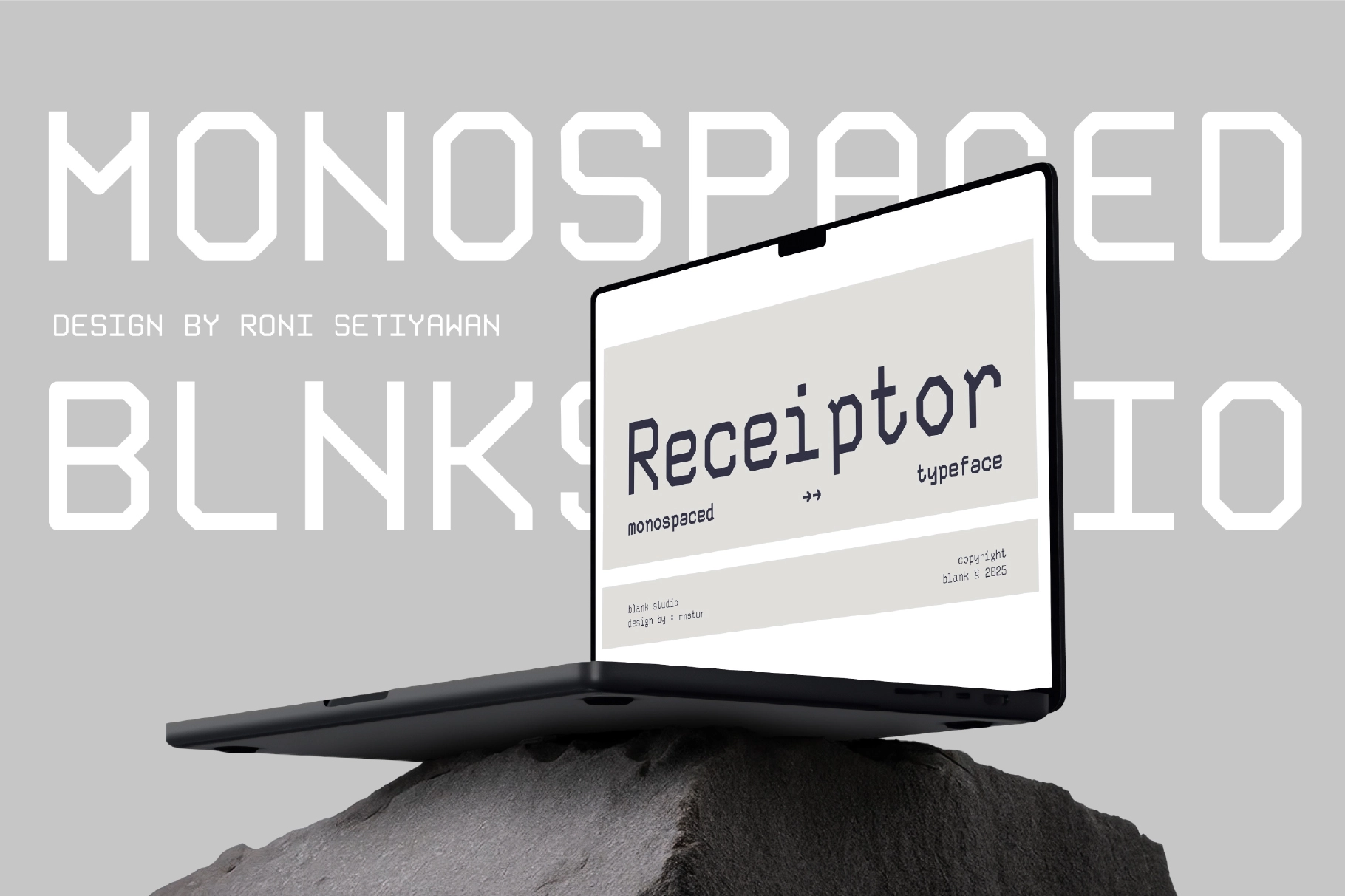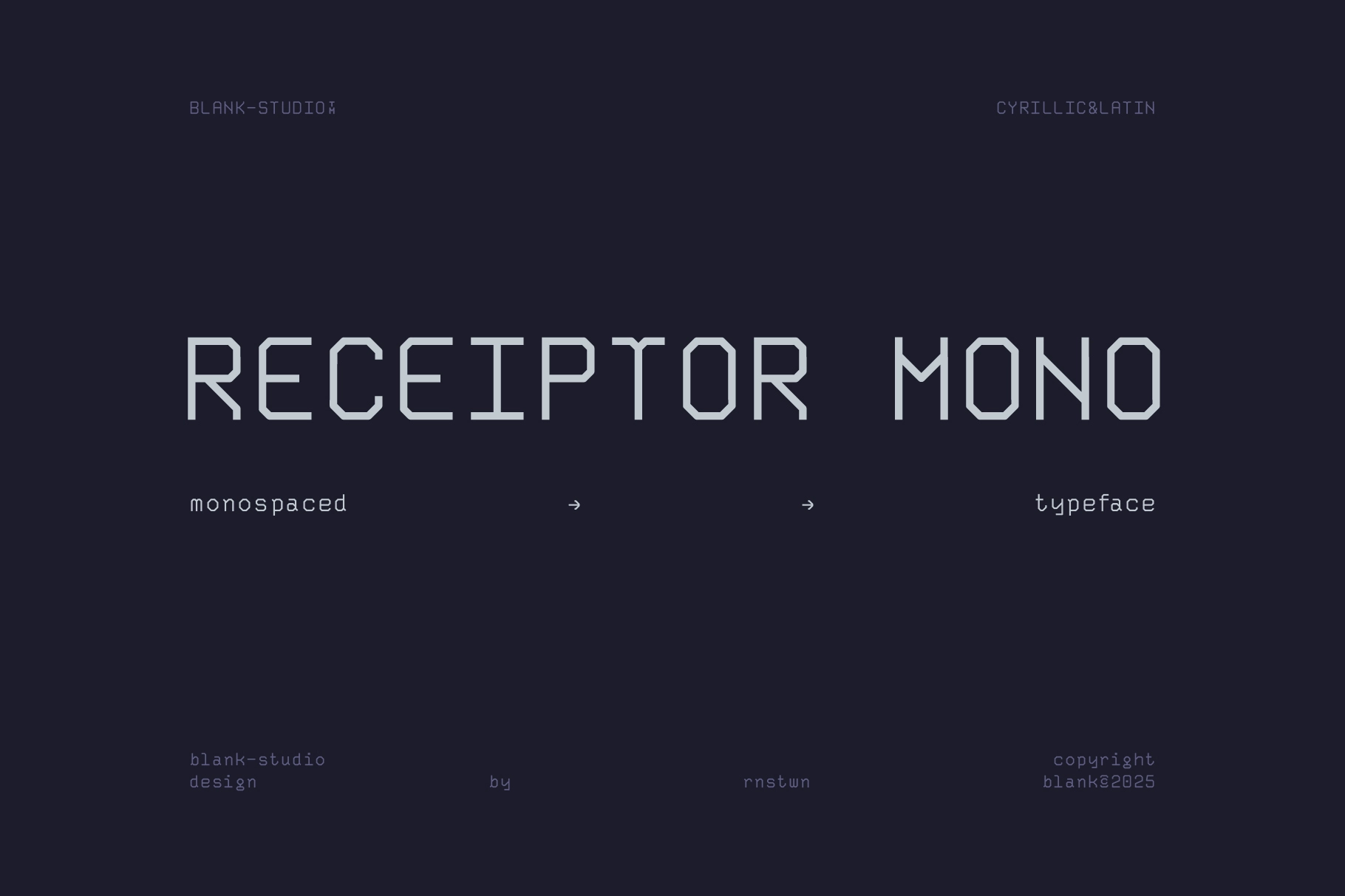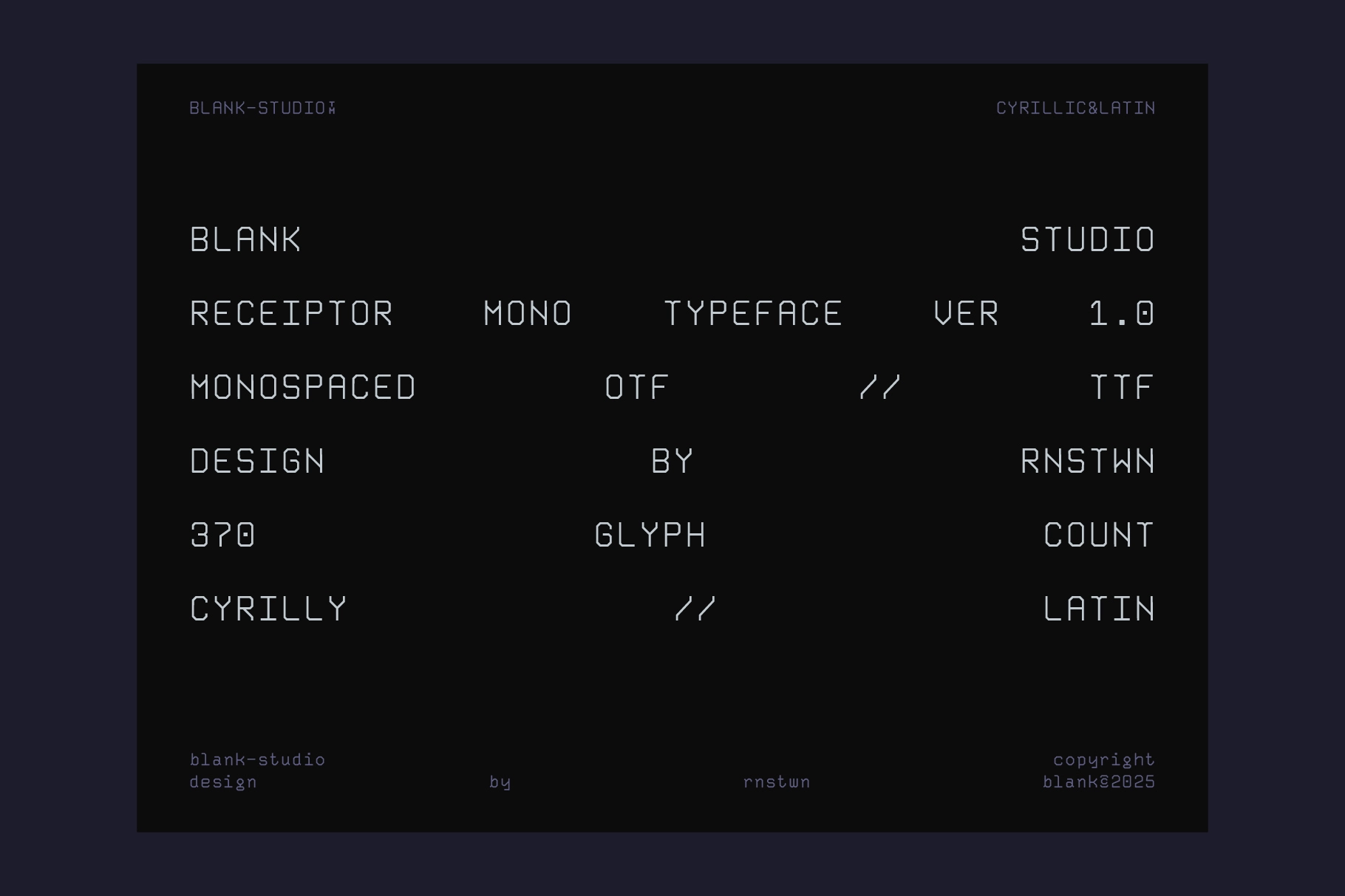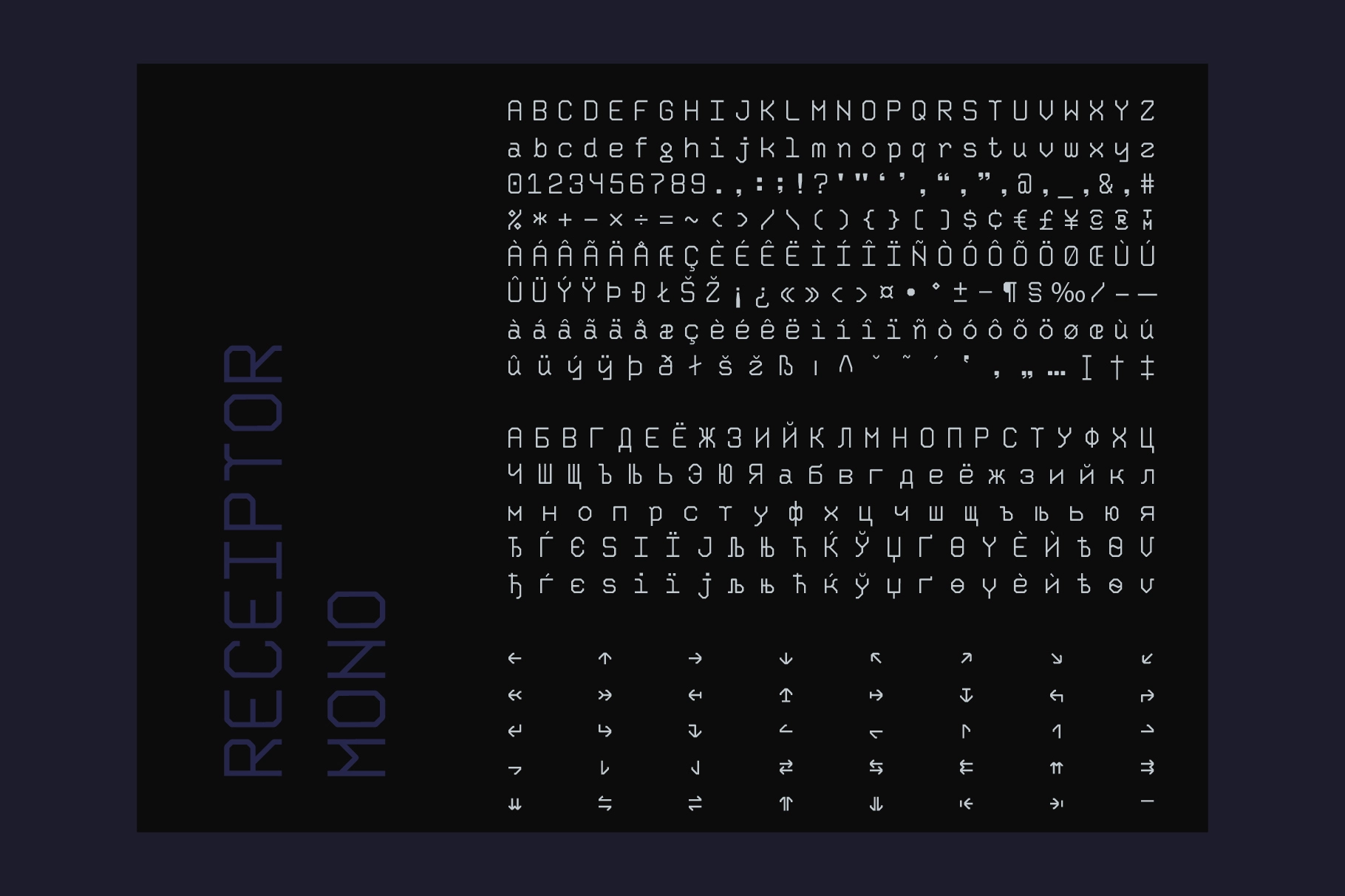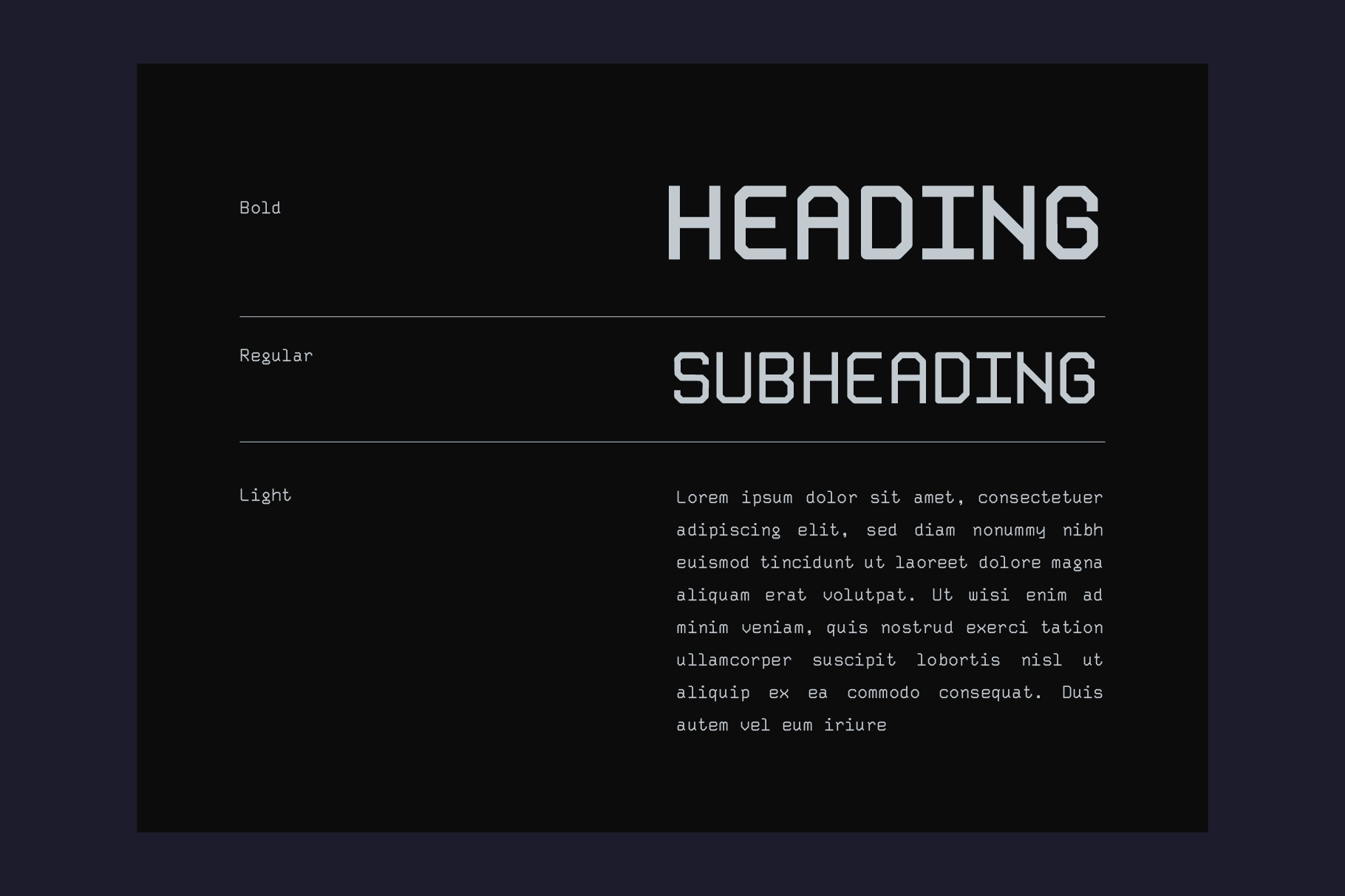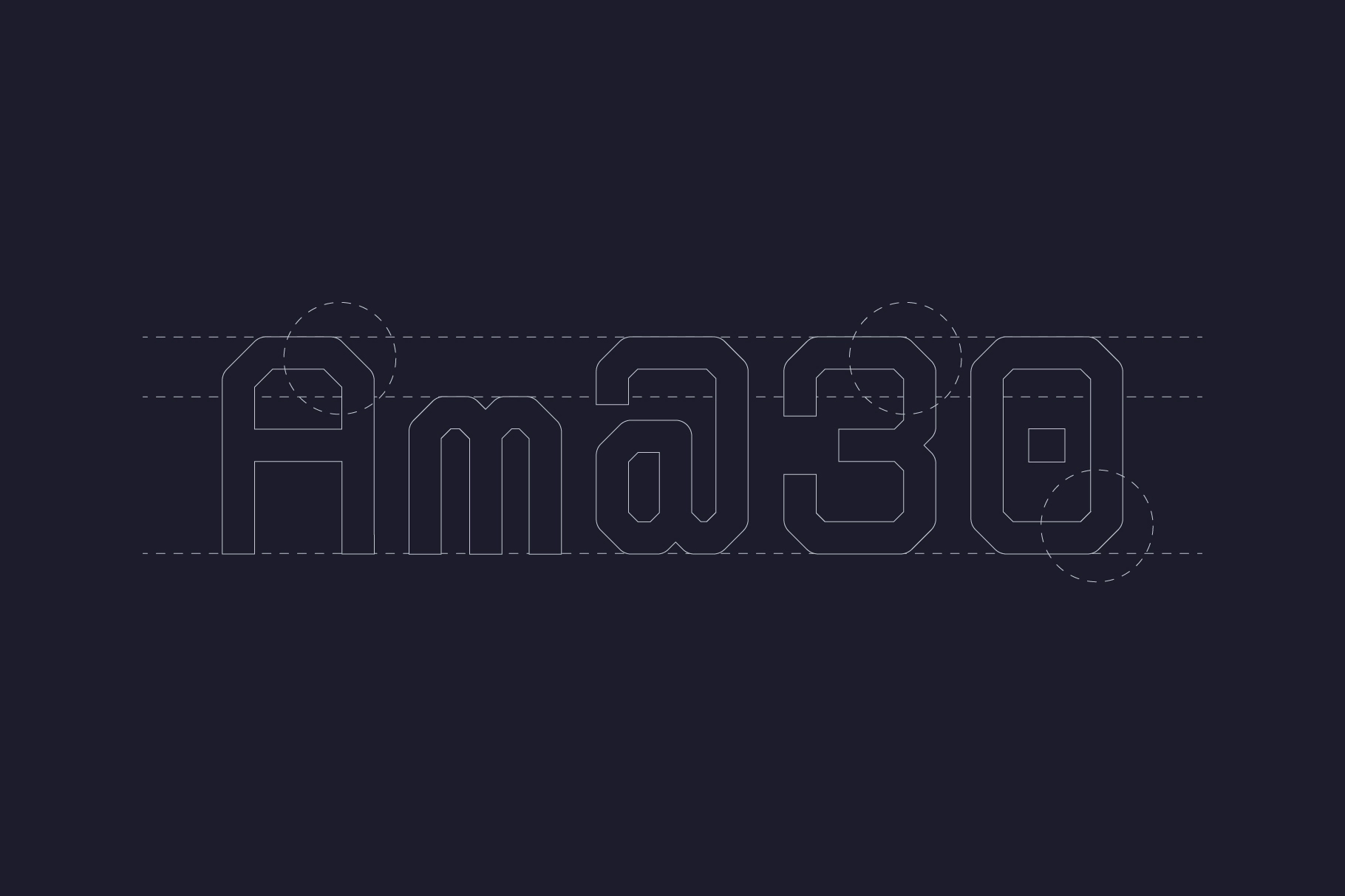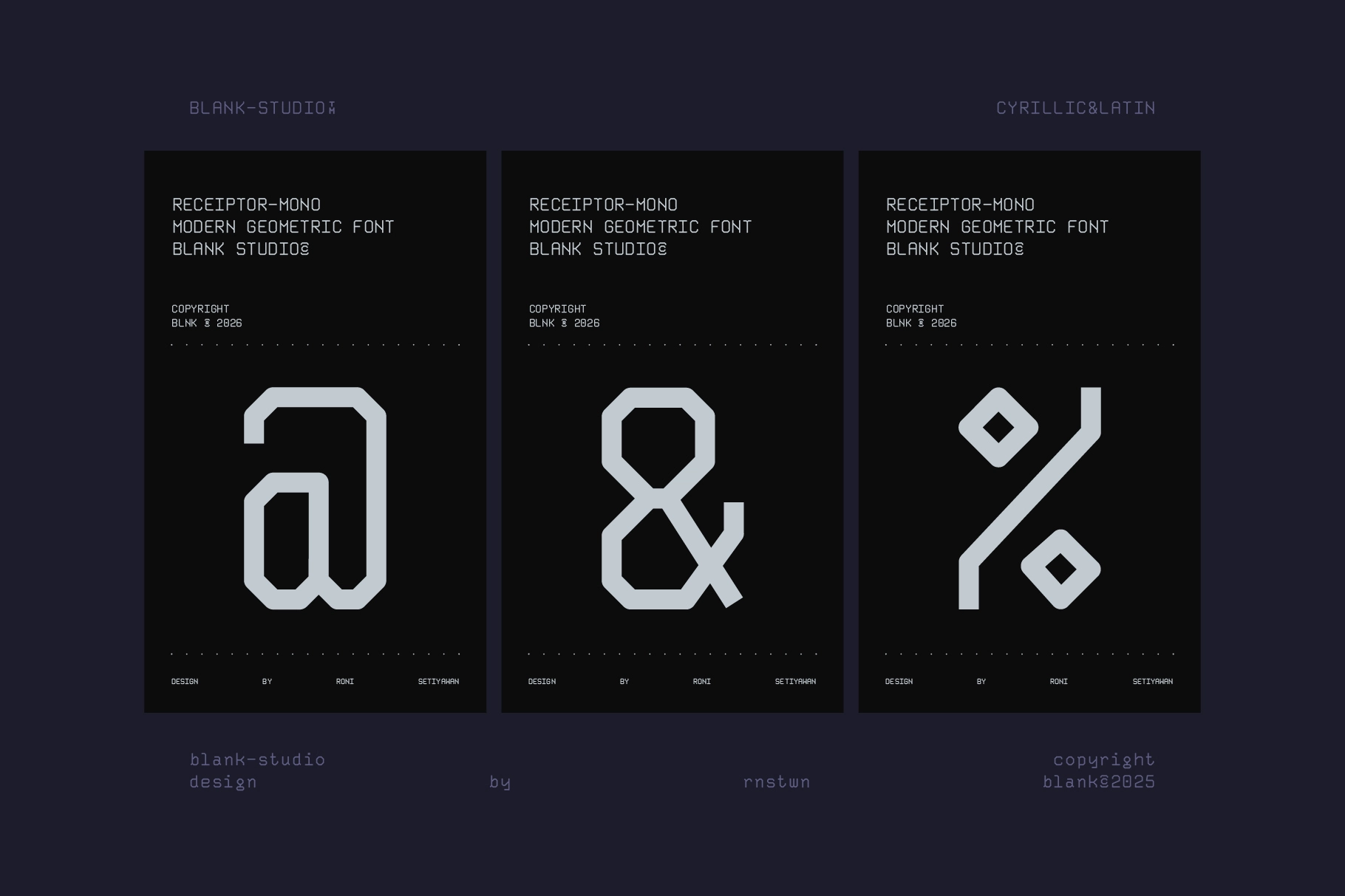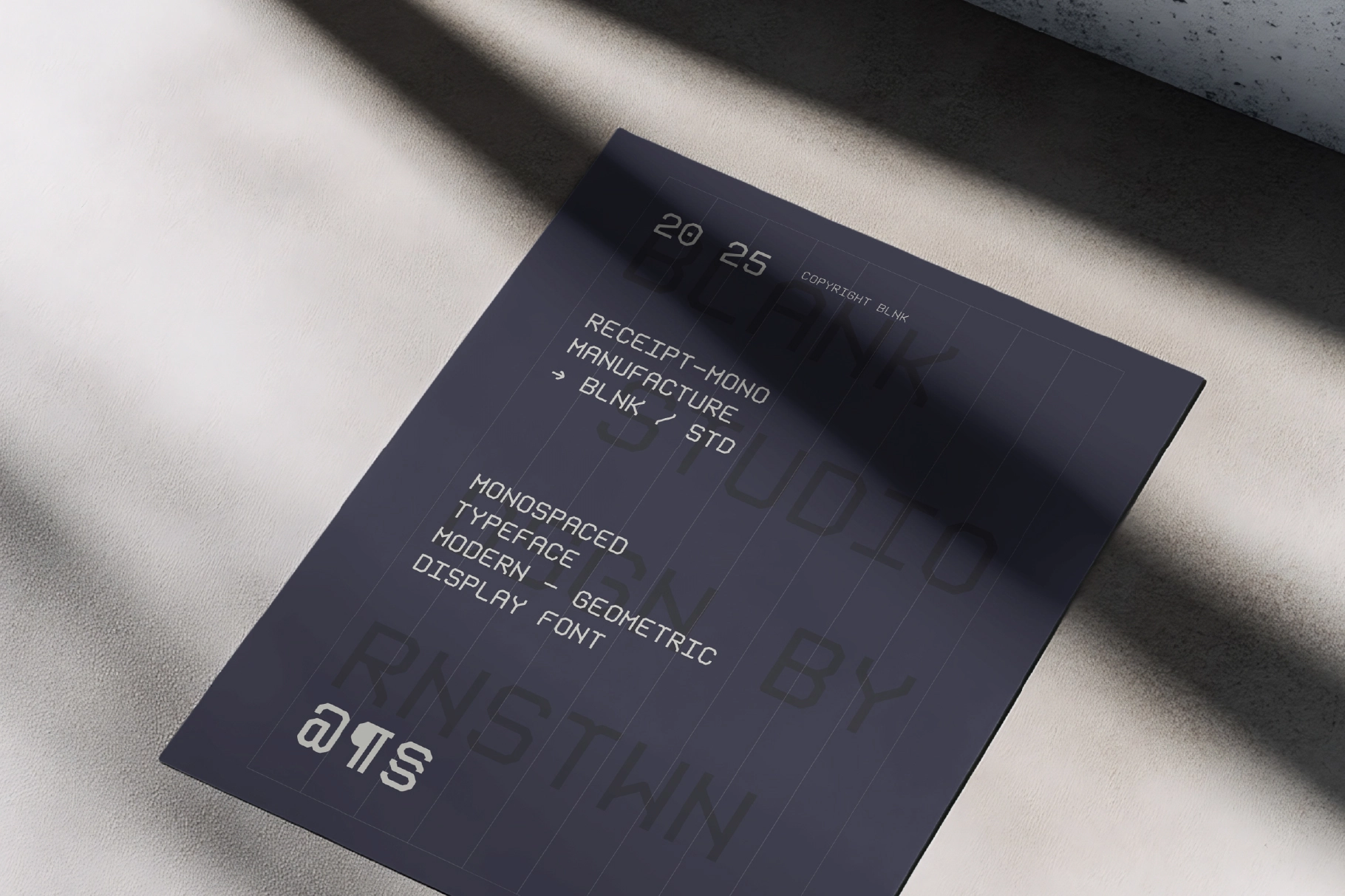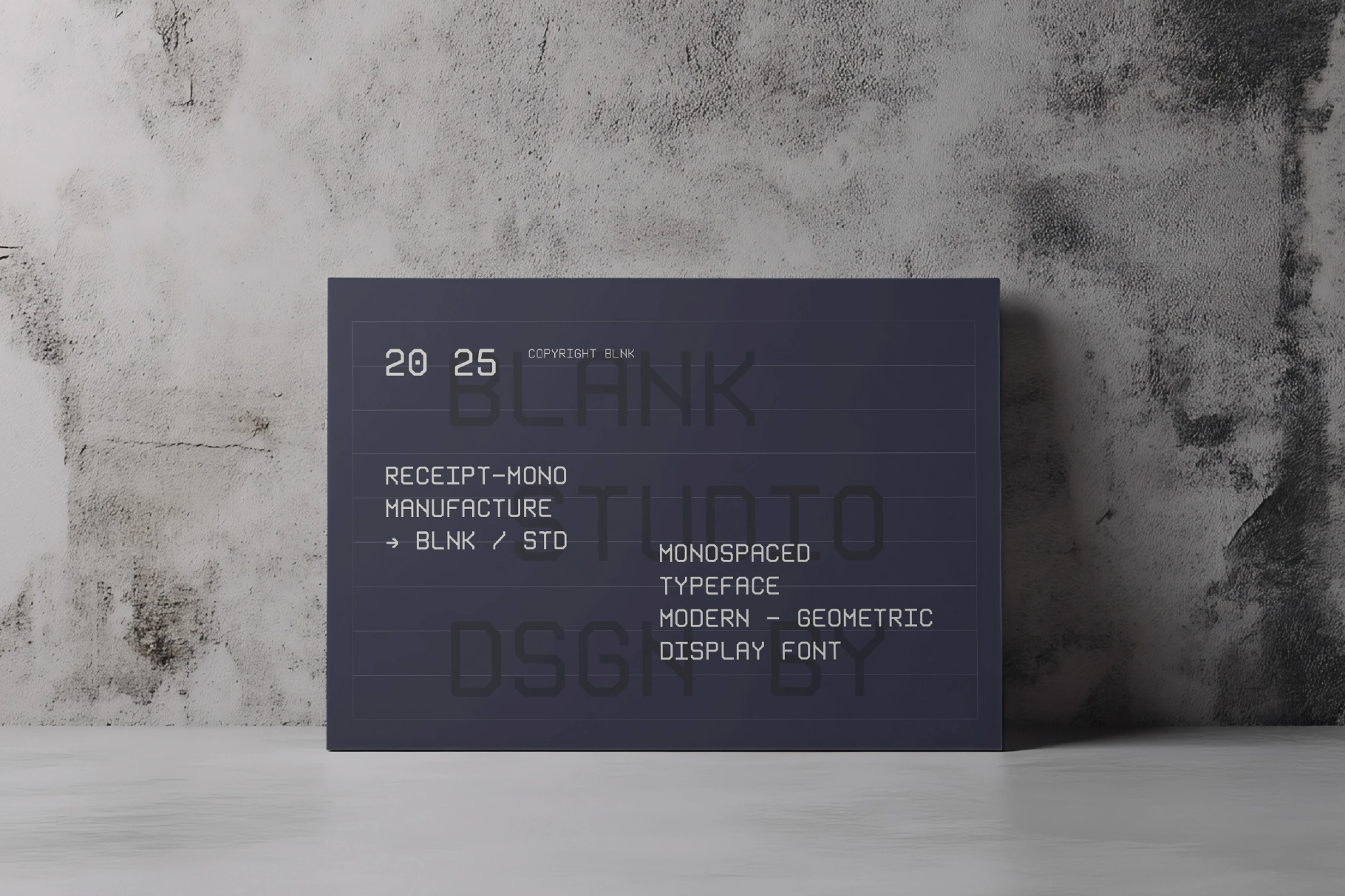
Receiptor Mono - Geometric Monospace Display Font
Receiptor Mono is a geometric monospace font drawn from the visual grammar of thermal receipt printers, digital cash registers, and early terminal displays. Each glyph sits on a strict fixed-width grid, with octagonal corner cuts replacing the rounded terminals you'd expect from a typical grotesk mono — the result reads as deliberately machine-made rather than humanist. Three weights (Light, Regular, Bold) give enough range to build a full typographic hierarchy from data labels and body copy up to display headlines, all within the same locked-grid aesthetic.
The 370-glyph character set covers both Latin and Cyrillic, making it a practical choice for projects that span those language territories. Use it for UI interfaces, data dashboards, sci-fi editorial design, techno event branding, invoice and receipt templates, label systems, and code-adjacent visual work.
• 3 styles: Light, Regular & Bold;
• uppercase & lowercase;
• numerals, punctuation & symbols;
• 370 glyphs total;
• Cyrillic & Latin Extended